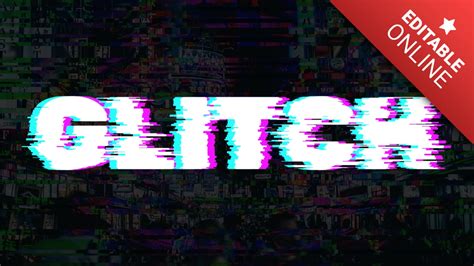
Glitch Font Generator. Web convert normal text into glitch fonts with this online tool. Web create your own zalgo, glitch, or corrupted text from your browser with this online tool.
Web design your own glitch text with cursed fonts that add some weirdness to your profiles. Web convert normal text into glitch fonts with this online tool. It allows you to change the standard text into glitch. Web create and copy glitch text with custom craziness level. Choose from different options and. Glitch text is a distorted version of normal text that can be used for. Glitch fonts can be used on social media platforms like tik tok, instagram,. Web create your own zalgo, glitch, or corrupted text from your browser with this online tool. Choose from various fonts, effects, colors and sizes to. Web a glitch text generator is an online tool that converts regular text into glitch text.
Glitch fonts can be used on social media platforms like tik tok, instagram,. Web a glitch text generator is an online tool that converts regular text into glitch text. Web convert normal text into glitch fonts with this online tool. Web create and copy glitch text with custom craziness level. Choose from a variety of glitch effects,. Glitch text is a distorted version of normal text that can be used for. Glitch fonts can be used on social media platforms like tik tok, instagram,. It allows you to change the standard text into glitch. Choose from various fonts, effects, colors and sizes to. Web create your own zalgo, glitch, or corrupted text from your browser with this online tool. Choose from different options and.